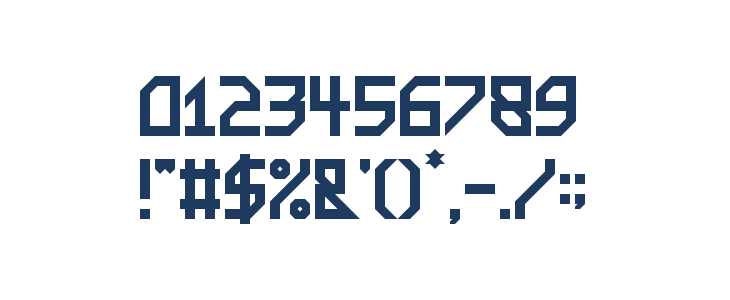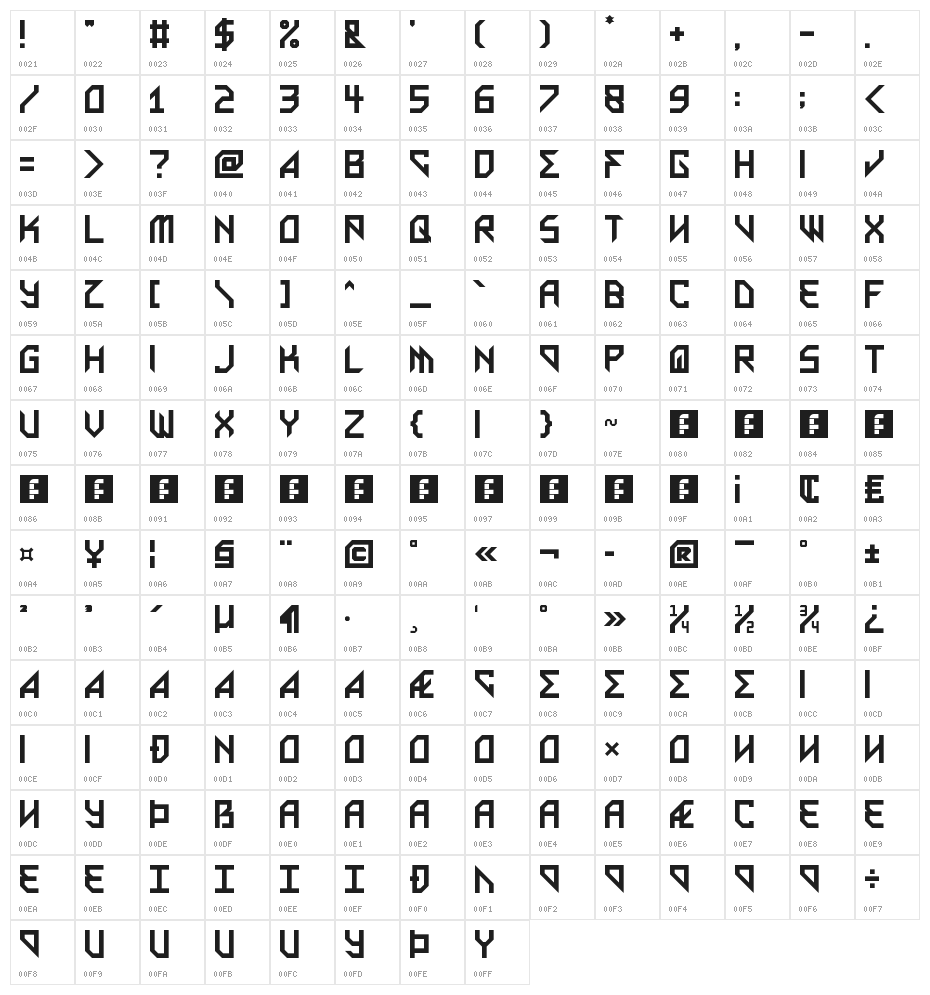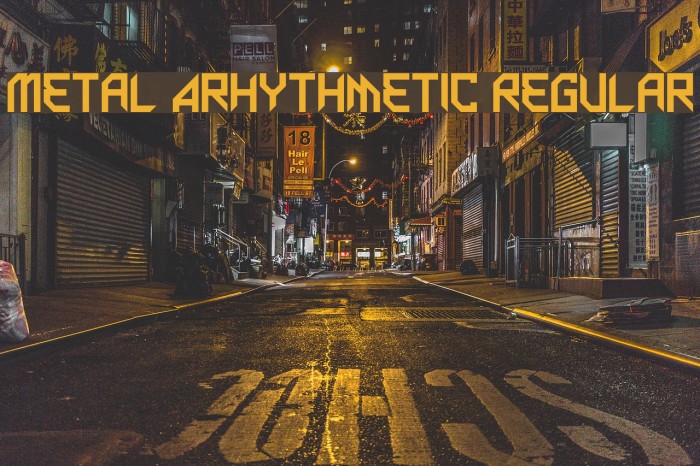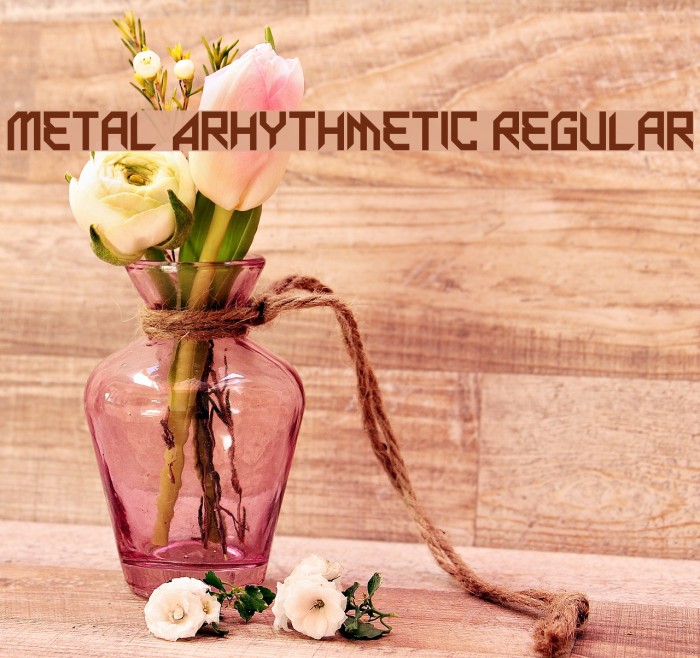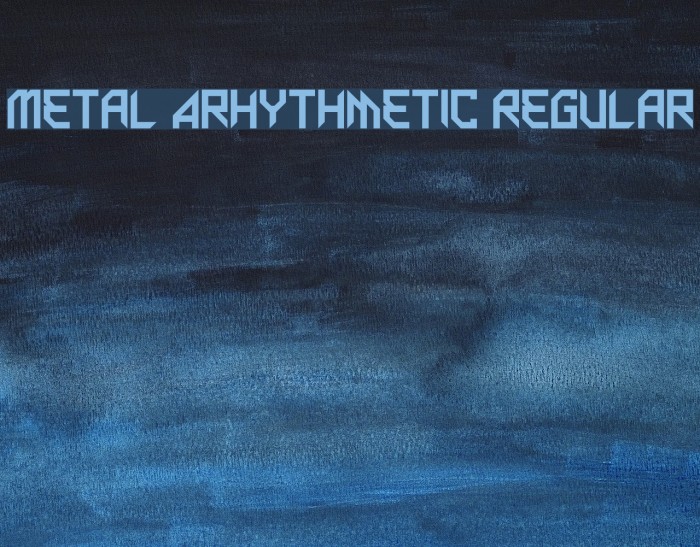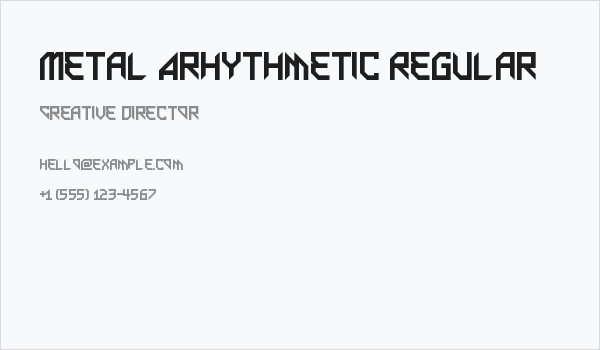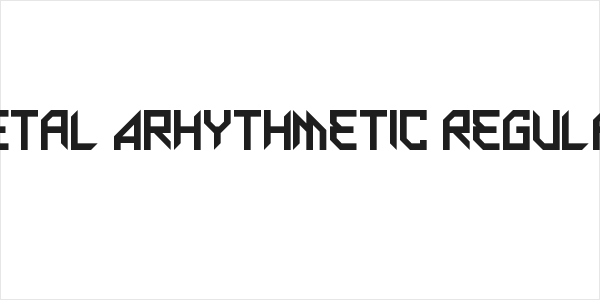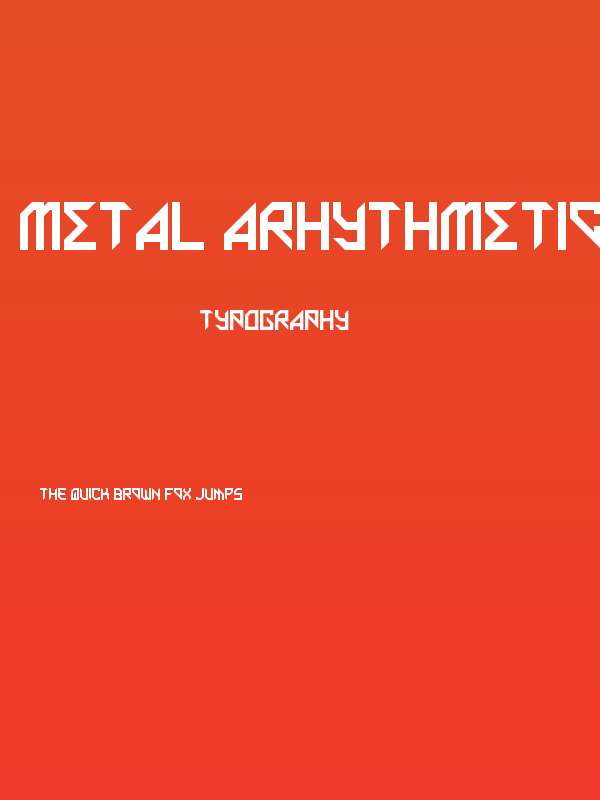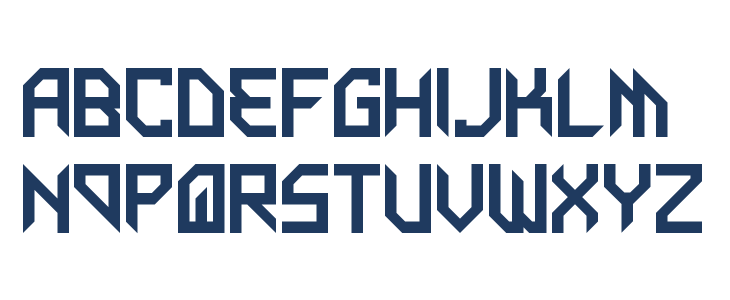
Metal Arhythmetic Regular Font
Metal Arhythmetic Regular Description
This font features a bold, geometric design with sharp angles and a futuristic aesthetic. The characters are constructed with thick, straight lines and angular cuts, giving it a mechanical and industrial feel. The uppercase and lowercase letters maintain a consistent style, with a strong emphasis on symmetry and uniformity. Numbers and special characters follow the same design principles, ensuring a cohesive look across all glyphs. The font's unique style makes it stand out, ideal for projects that require a modern and edgy appearance.
| Proposed Projects | Ideal for sci-fi themed designs, video game graphics, tech branding, and modern posters. |